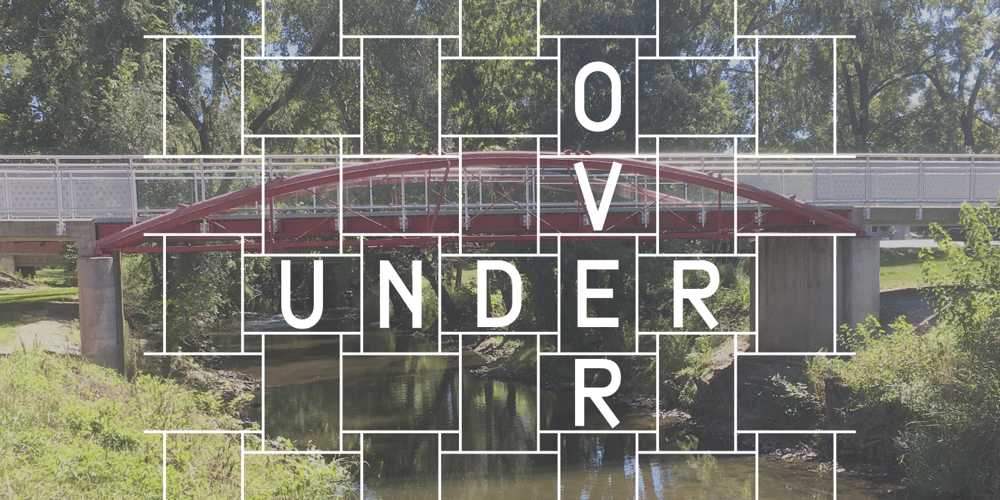
Over Under
Over Under font
Over Under Font Family was designed by Robert Schenk and published by Ingrimayne Type. Over Under contains 2 styles and family package options. OverUnder is a two font family that plays with the capabilities of the Opentype feature of Contextual Alternatives to alternate two sets of characters. One set is on tall vertical slabs and the other set is on wide horizontal slabs, and when the sets are alternated, the result is a pattern that has a woven appearance.